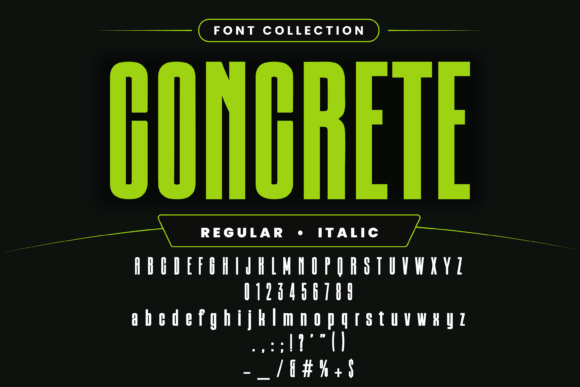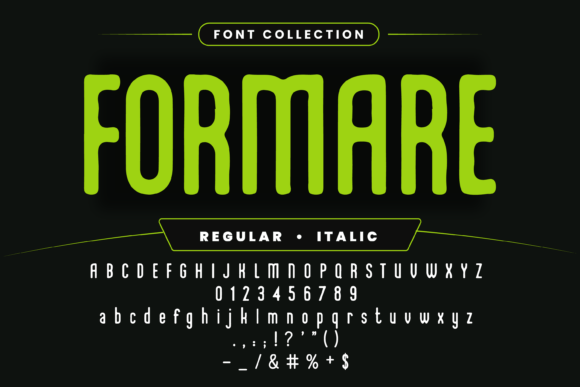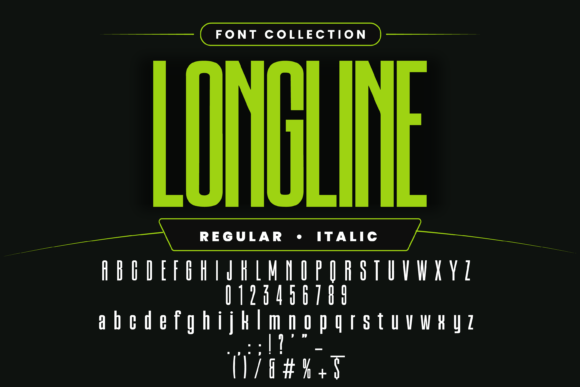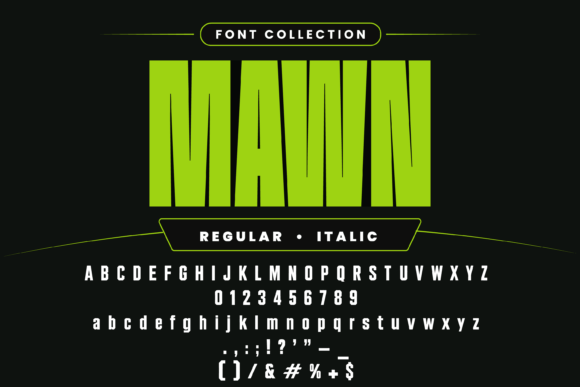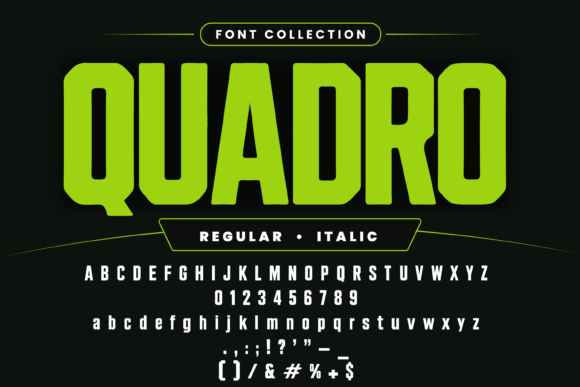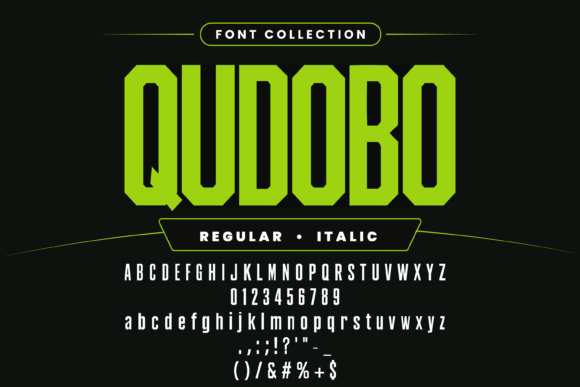
Unlock Bold Visual Impact with Condensed Collection – 10 Tall Set Font
Are you tired of using ordinary fonts that fail to make a statement? Look no further than the Condensed Collection – 10 Tall Set Font, a game-changing bundle of sans serif fonts designed to elevate your designs with a bold and modern visual identity. This comprehensive collection includes 10 unique typefaces, each crafted with a strong vertical structure, clean geometry, and high readability, making it perfect for designers seeking a versatile and impactful typography solution.
What Makes This Font Collection Stand Out?
The Condensed Collection – 10 Tall Set Font is a powerhouse of typographic excellence, boasting a range of features that set it apart from other font bundles. Here are just a few reasons why this collection is a must-have for designers:
- 10 Unique Typefaces: This bundle includes 10 distinct condensed sans serif fonts, each with its own character and style, ensuring that you’ll find the perfect fit for your design project.
- Regular & Italic Styles: Each font comes in both regular and italic styles, providing you with flexibility and versatility in your typography.
- Comprehensive Character Set: The fonts include uppercase and lowercase letters, numbers, and essential punctuation, covering all your typographic needs.
- Clean Geometry & High Readability: The fonts are crafted with clean geometry and high readability in mind, making them perfect for use in a variety of design applications, from logos and branding to posters and digital media.
The Condensed Collection – 10 Tall Set Font is an incredibly versatile bundle, suitable for a wide range of design applications, including:
- Branding & Logo Design: Create a bold and memorable brand identity with these impactful fonts.
- Posters & Editorial Layouts: Add a touch of modernity and sophistication to your posters and editorial layouts.
- Social Media & Digital Design: Elevate your social media graphics and digital designs with these clean and modern fonts.
- Packaging: Make your product packaging stand out with these bold and attention-grabbing fonts.
Designed for Designers, by Designers
The Condensed Collection – 10 Tall Set Font is designed with the needs of modern designers in mind. The fonts are crafted to provide a strong visual impact, while also being highly legible and versatile. Whether you’re a freelance designer, a design agency, or a DIY craft, this font bundle is the perfect solution for anyone looking to elevate their typography and create stunning designs.
Benefits of Using This Font Collection
By investing in the Condensed Collection – 10 Tall Set Font, you’ll enjoy a range of benefits, including:
- Time-Saving: With 10 unique fonts in one bundle, you’ll save time searching for individual fonts and have a comprehensive typography solution at your fingertips.
- Consistency: Use the same font family across multiple design projects, ensuring consistency and cohesion in your brand identity.
- Flexibility: With both regular and italic styles, you’ll have the flexibility to experiment with different typography styles and find the perfect fit for your design.
The Condensed Collection – 10 Tall Set Font is an exceptional resource for designers seeking a bold, modern, and versatile typography solution. With its 10 unique typefaces, comprehensive character set, and clean geometry, this font bundle is perfect for a wide range of design applications. Whether you’re looking to create a stunning brand identity, craft eye-catching posters, or elevate your digital designs, this font collection has got you covered. Invest in the Condensed Collection – 10 Tall Set Font today and unlock a world of bold visual impact and creative possibility.